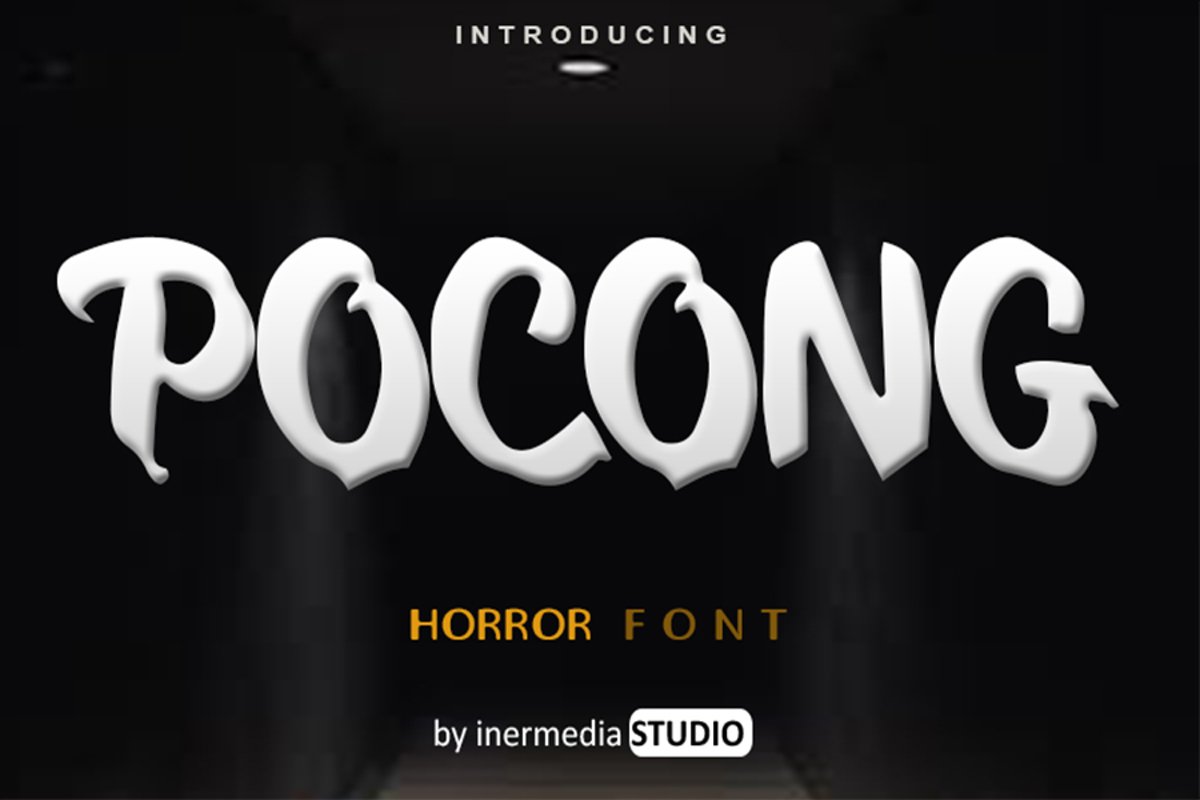
POCONG
Pocong is a scary display font. It is perfect for any spooky project, such us movies, posters, logos and much more!
+More than 100+ Glyphs
+More than 43 Languages
+PUA-Encoded for many alternates and ligatures